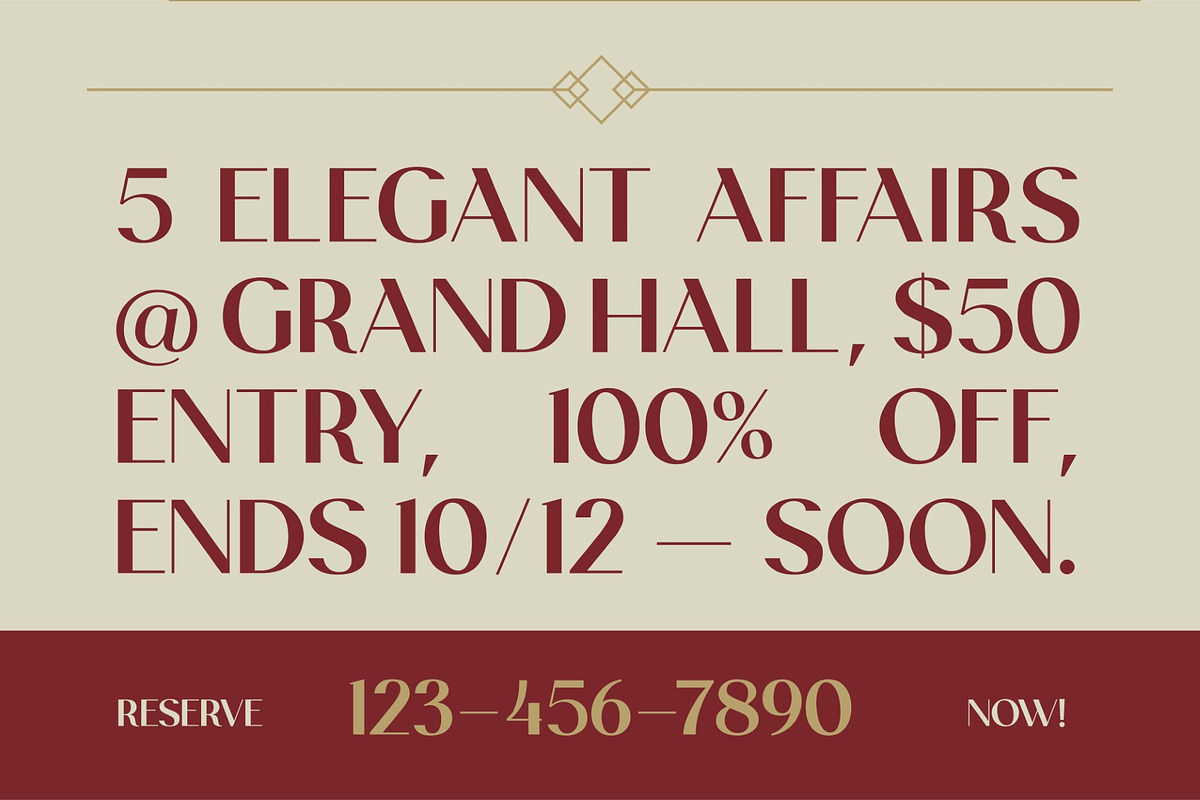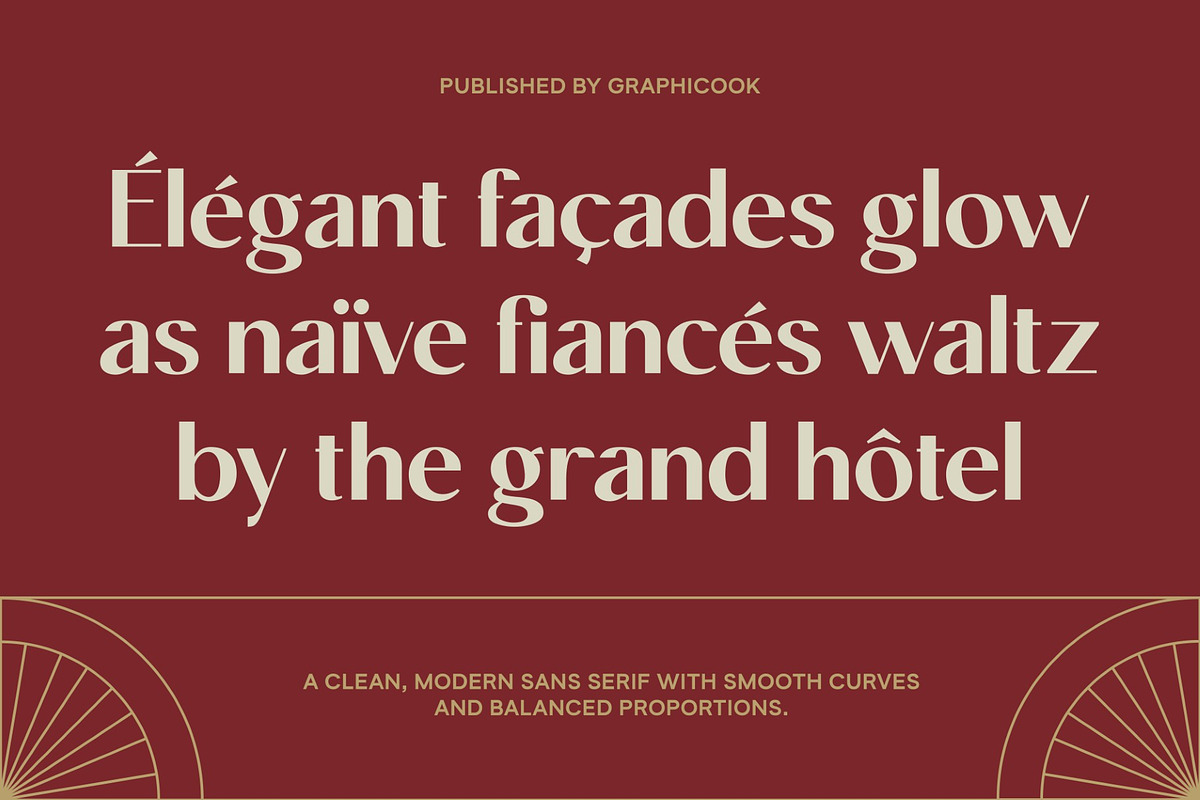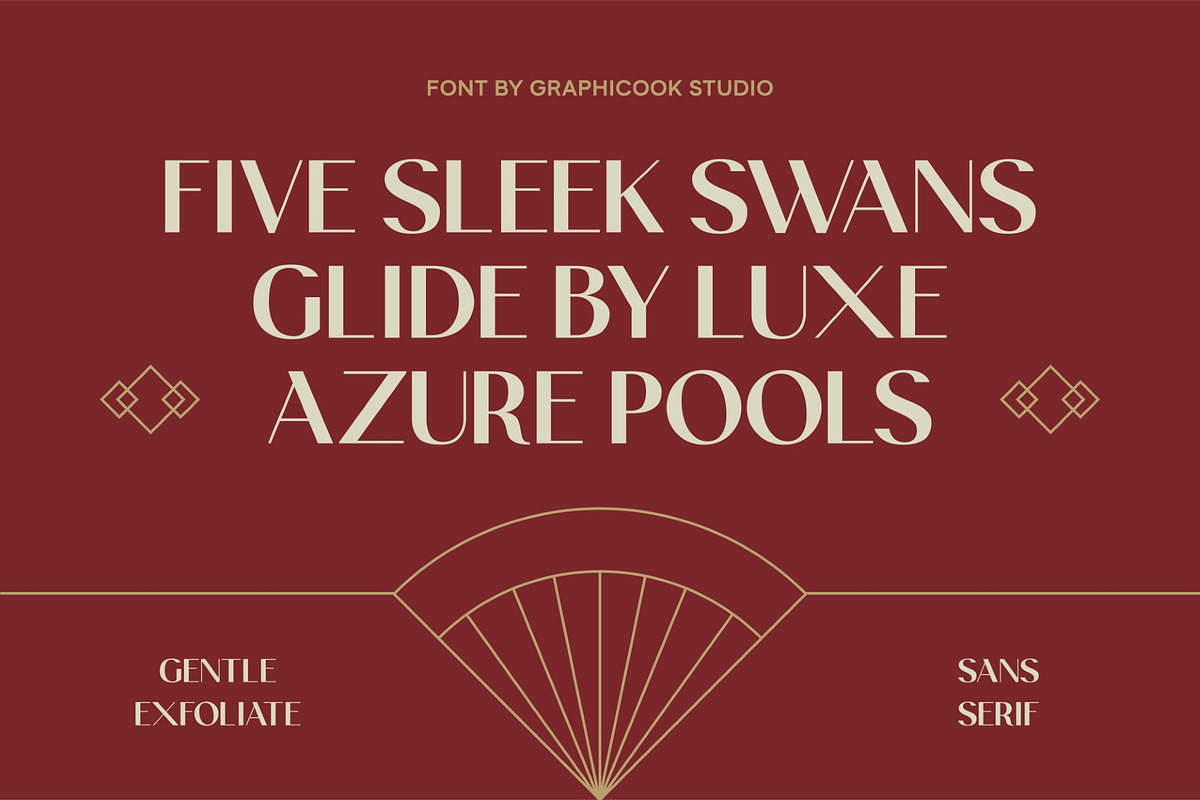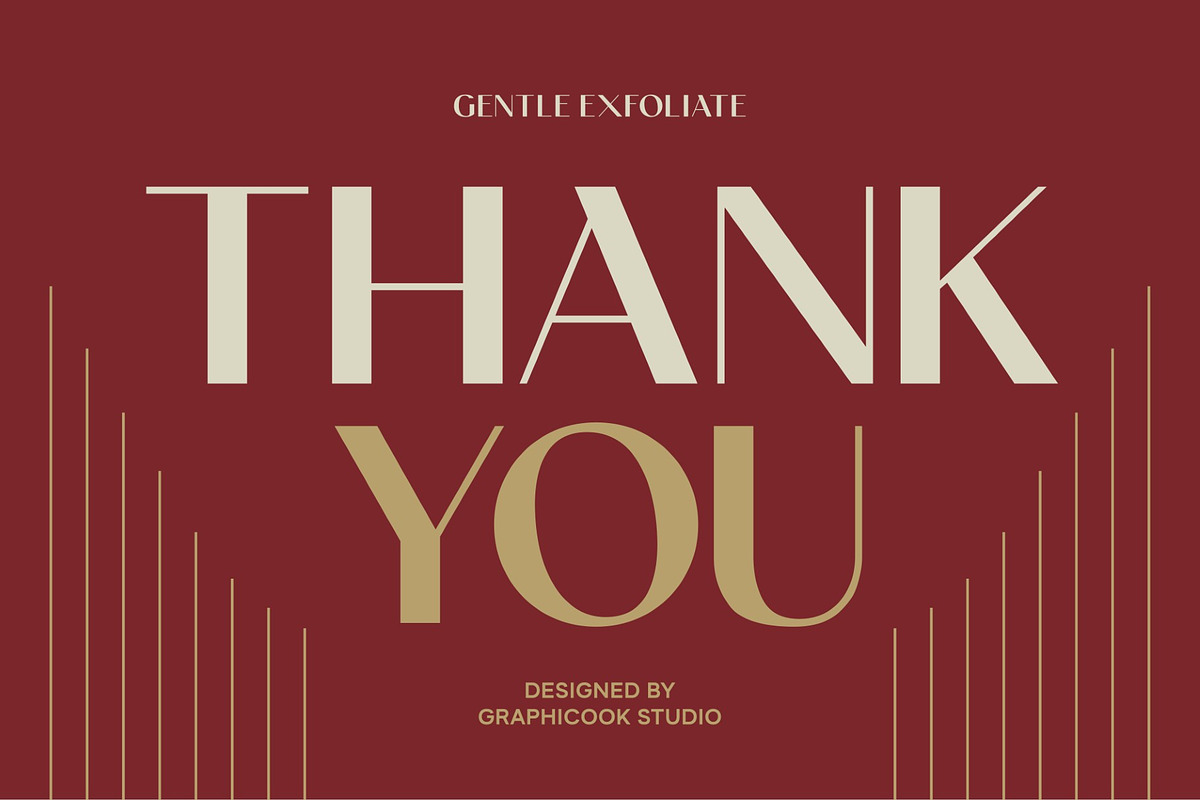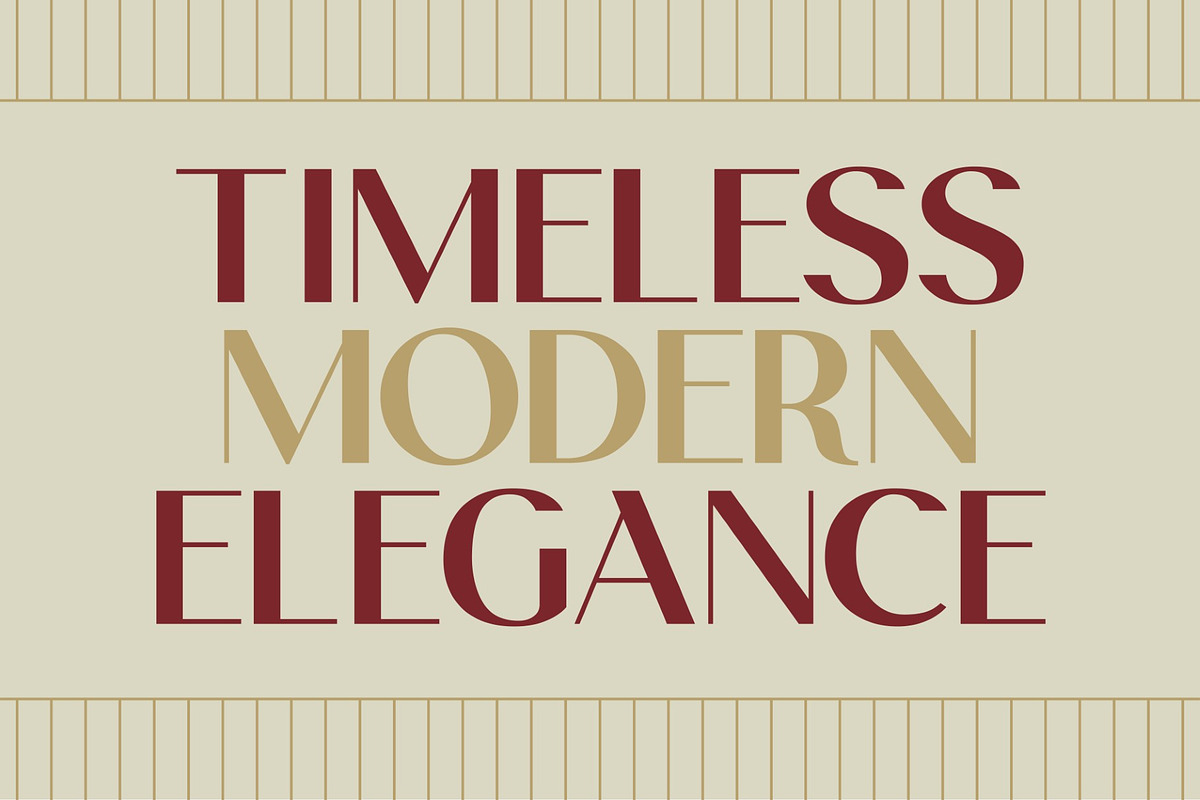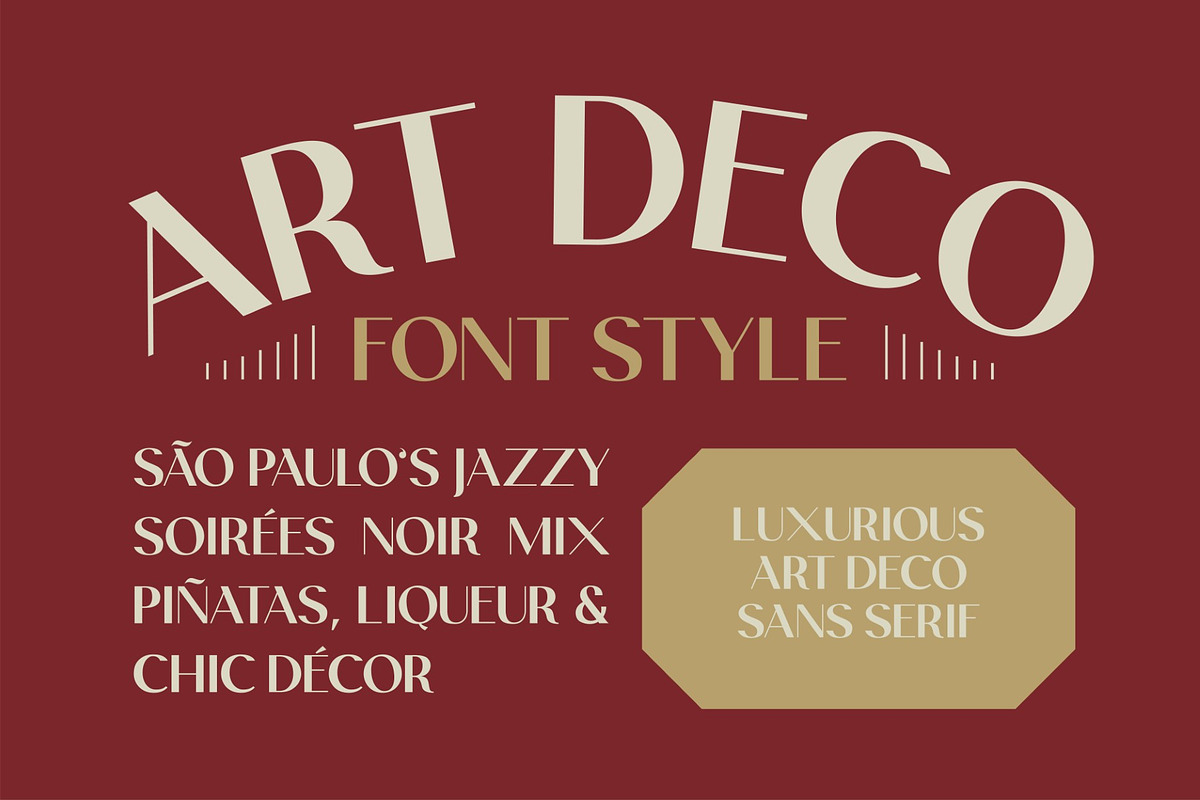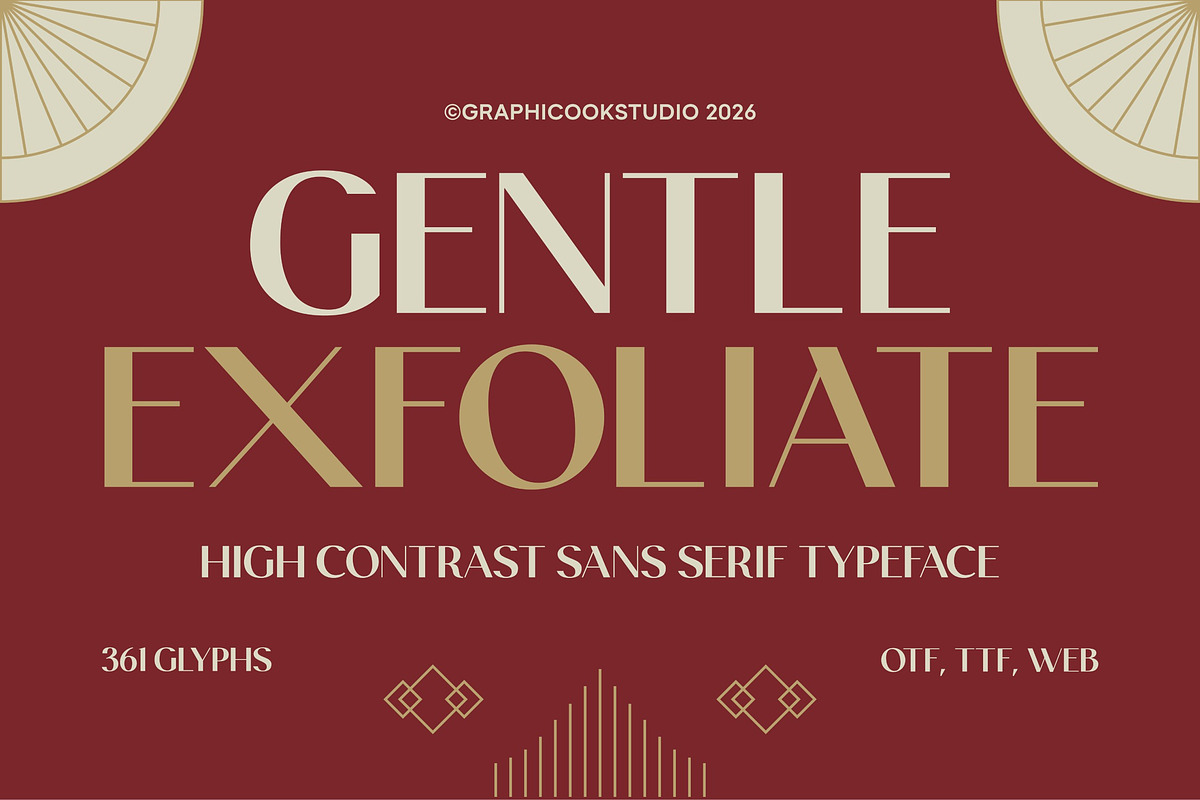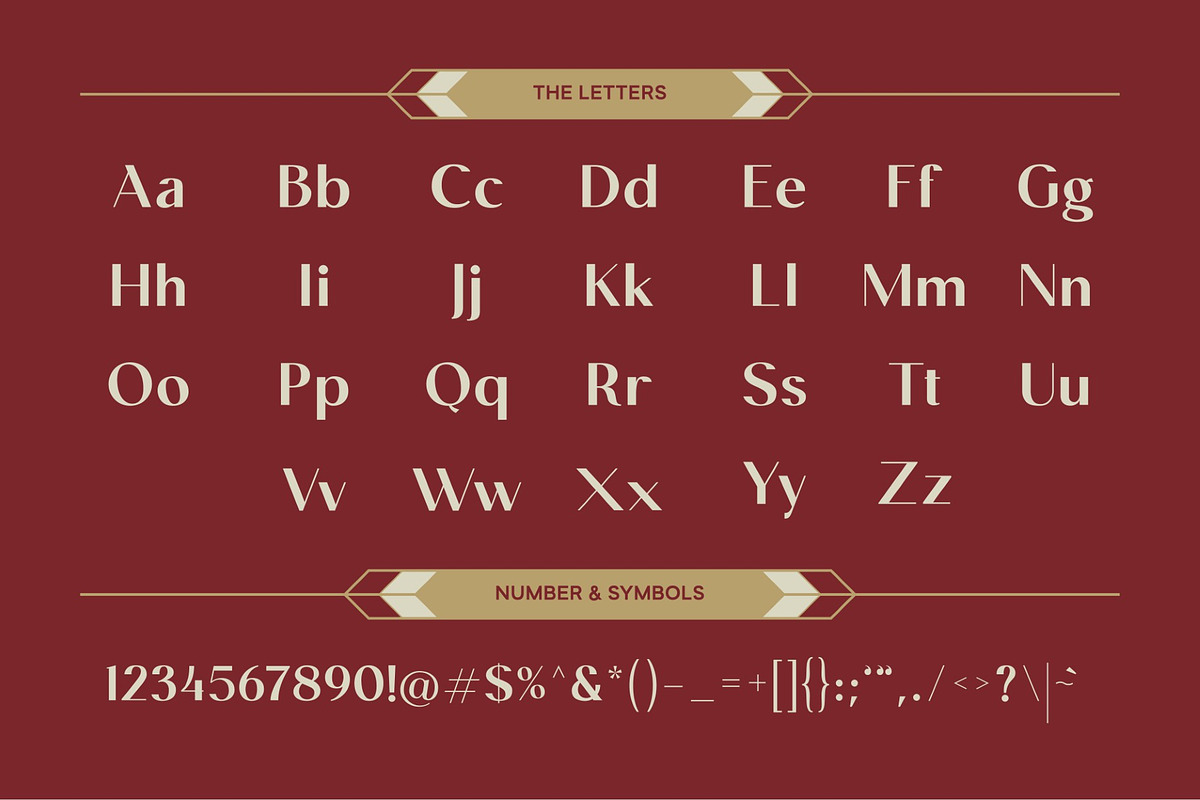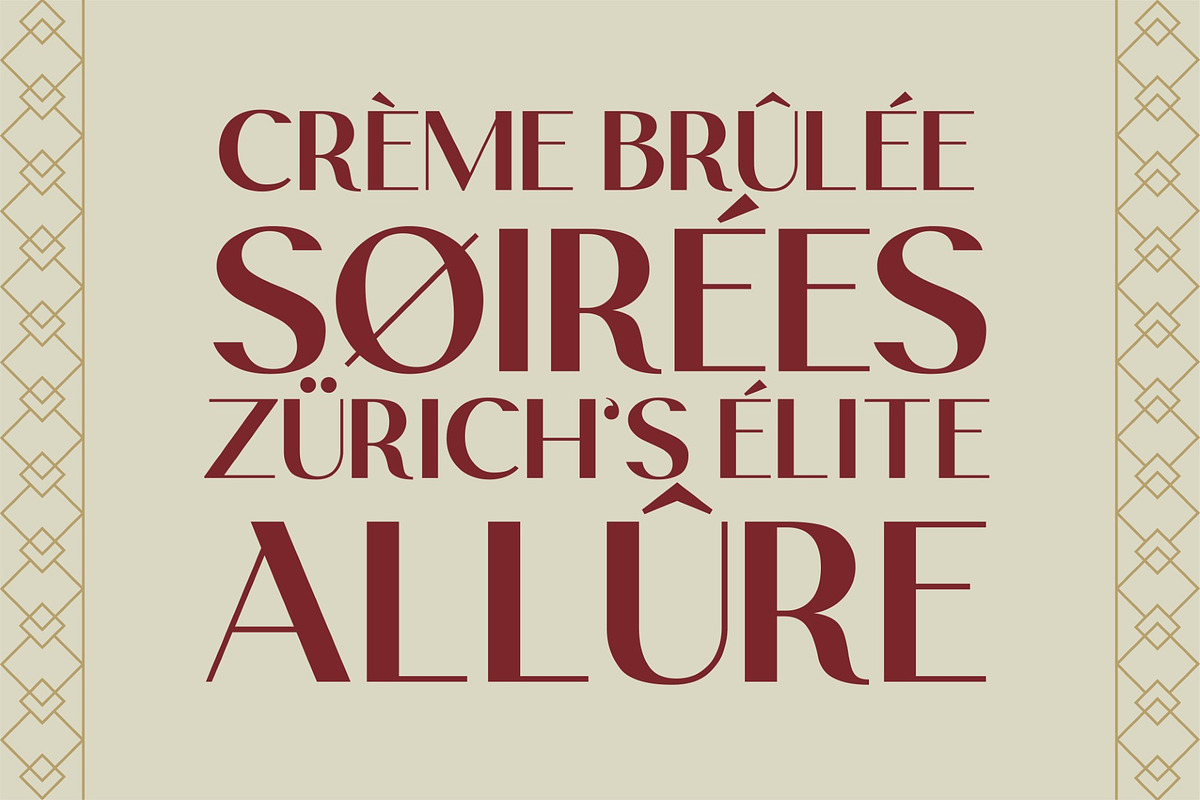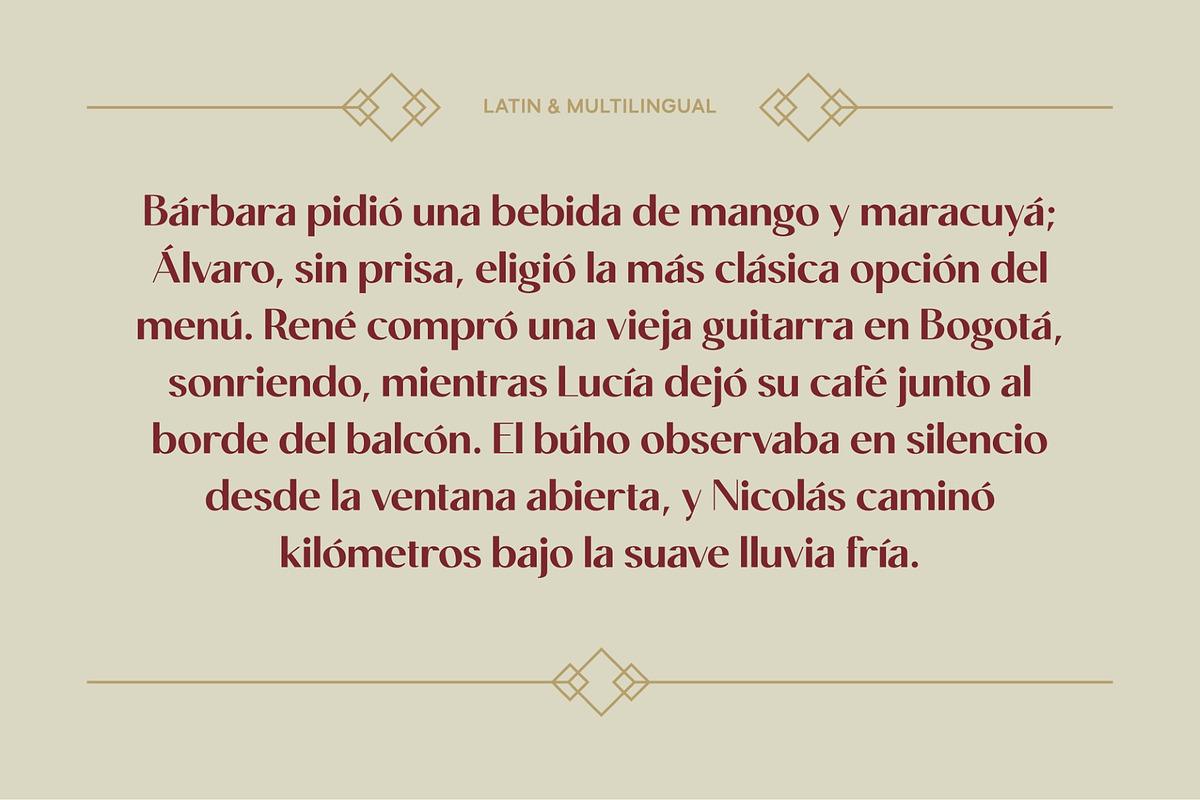
Gentle Exfoliate
Gentle Exfoliate is a high-contrast sans-serif display font that combines geometric precision, elegant proportions, and dramatic stroke contrast. Its luxurious, minimalist, and timeless character makes it an excellent choice for luxury branding, fashion, editorials, logos, premium packaging, and sophisticated visual identities.
It is perfect for headlines, logotypes, magazines, packaging, quotes, movies, games, cover albums, book covers, and flyers, it's a perfect solution for creating eye-catching designs that stand out in any context.